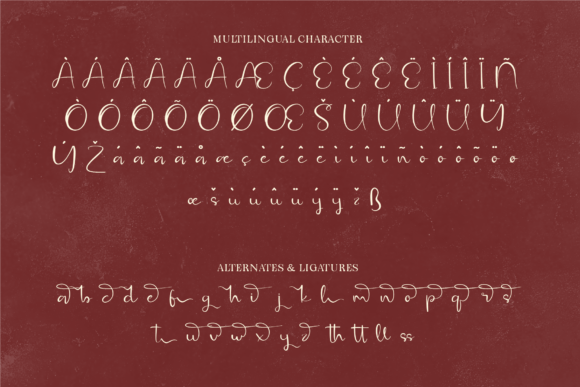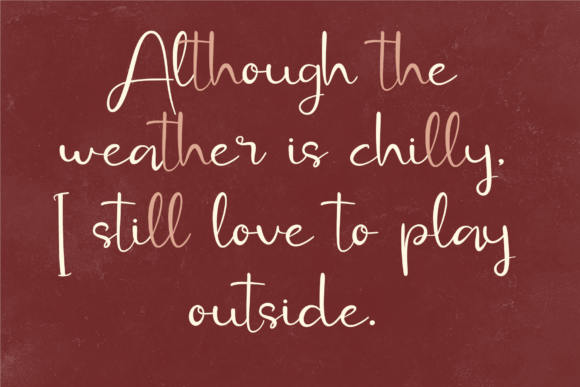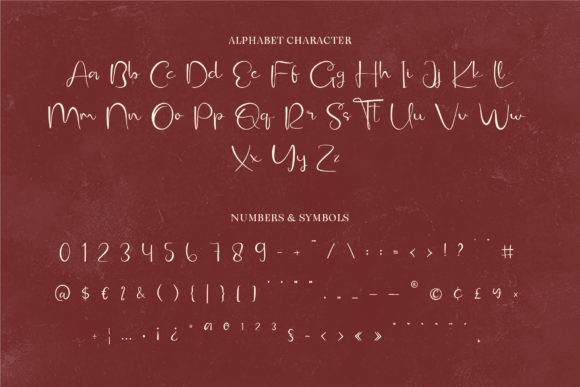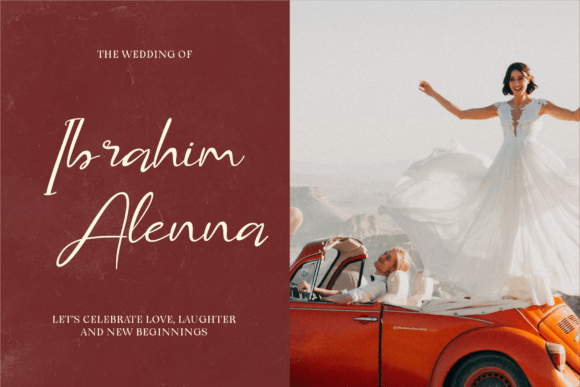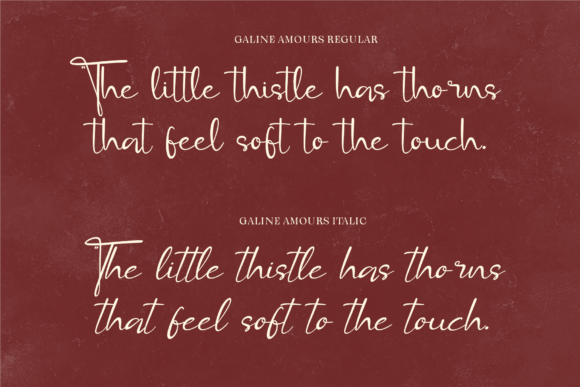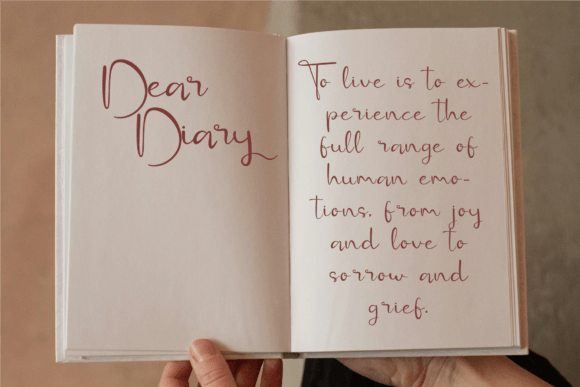
Introduction to Galine Amours Font Font
Fonts play a crucial role in design, and the Galine Amours Font font is a typeface that brings both character and versatility to any project. Whether you’re working on a branding project, a website, or a print design, the Galine Amours Font font offers a unique style that can elevate your work.
**Galine Amours** is a modern handwritten font with a touch of romance and sophistication.
Its elegant curves and smooth strokes create an enchanting aesthetic that is perfect for wedding invitations, love notes, branding, and more This font combines the natural beauty of handwriting with a refined modern style, adding charm and warmth to your designs.
Key Features of Galine Amours Font Font
Why Choose Galine Amours Font Font?
The Galine Amours Font font is more than just a typeface – it’s a design tool that helps you communicate your message with style and clarity. Its unique character set and versatile design make it suitable for a wide range of applications, from elegant invitations to bold headlines.
With its carefully crafted letterforms and balanced proportions, the Galine Amours Font font ensures readability and visual appeal across all mediums.
What makes Galine Amours Font font special?
The Galine Amours Font font stands out with its unique design, exceptional readability, and versatility across various design applications.